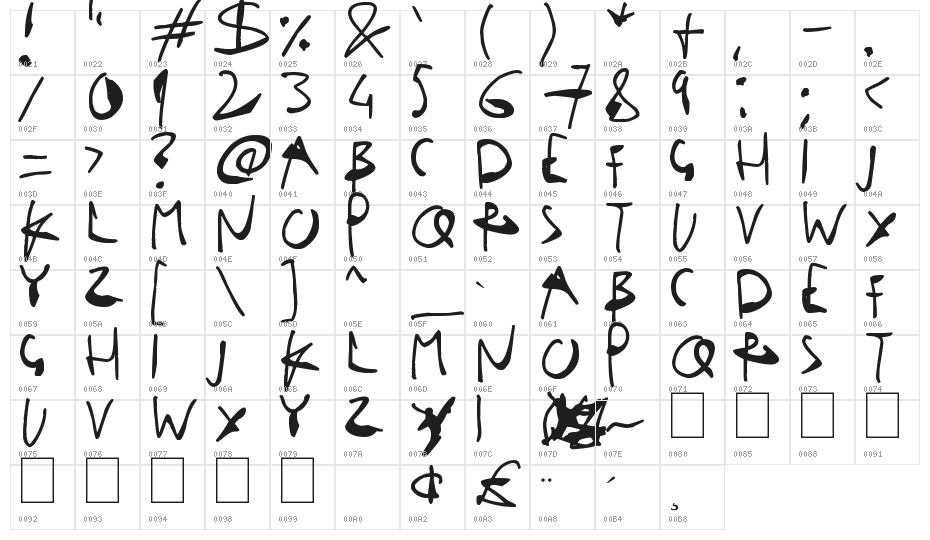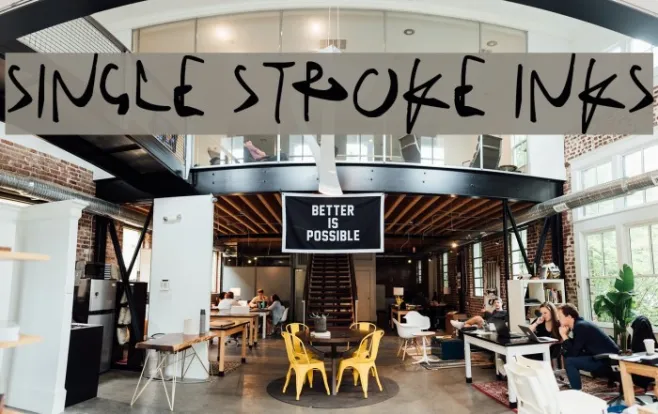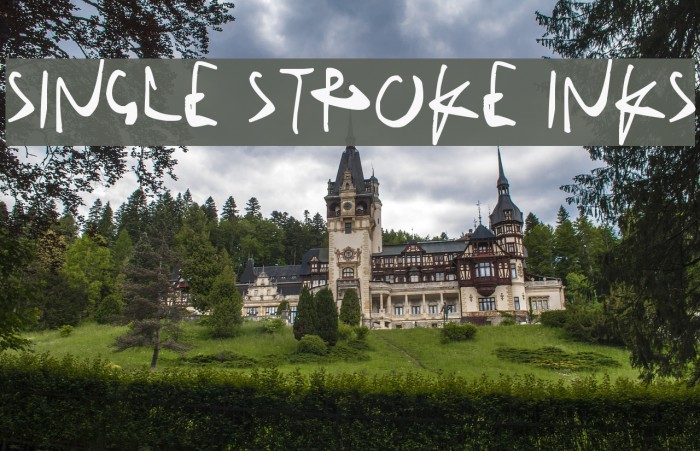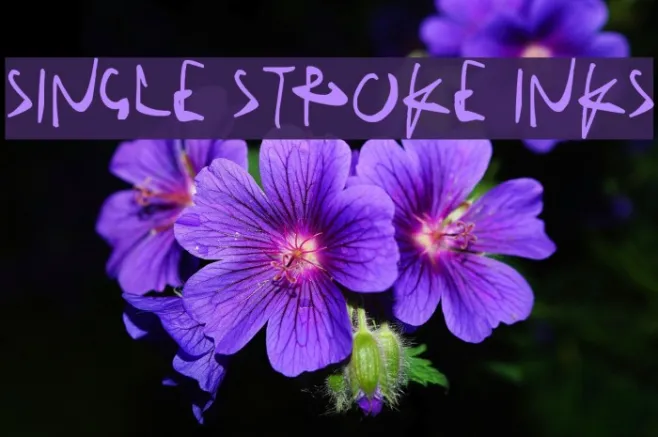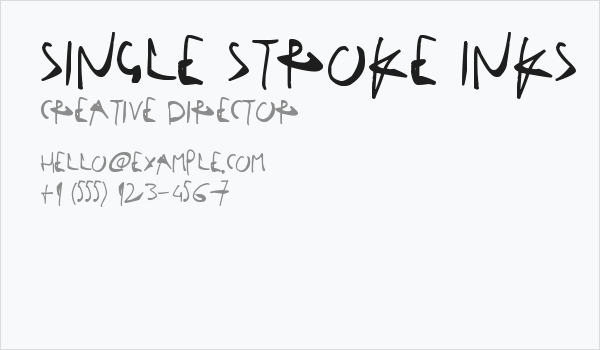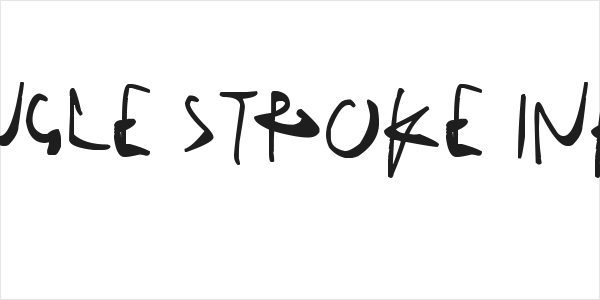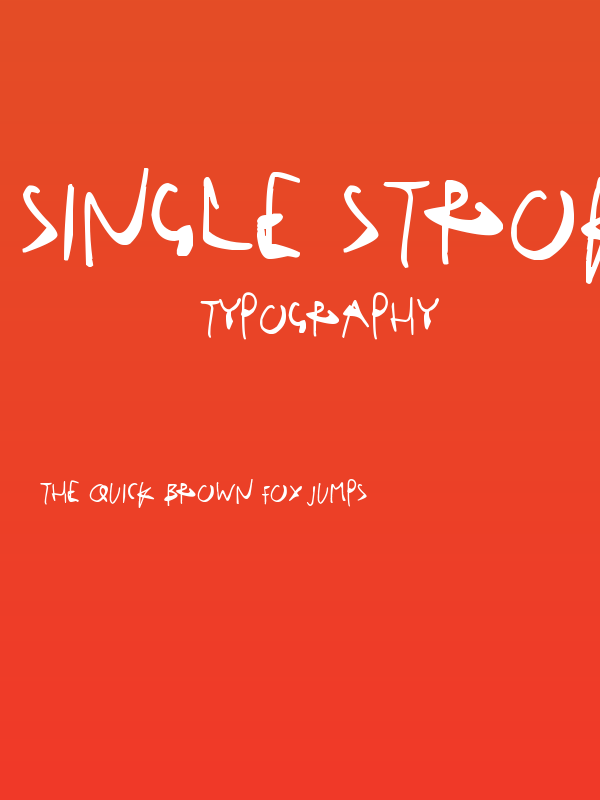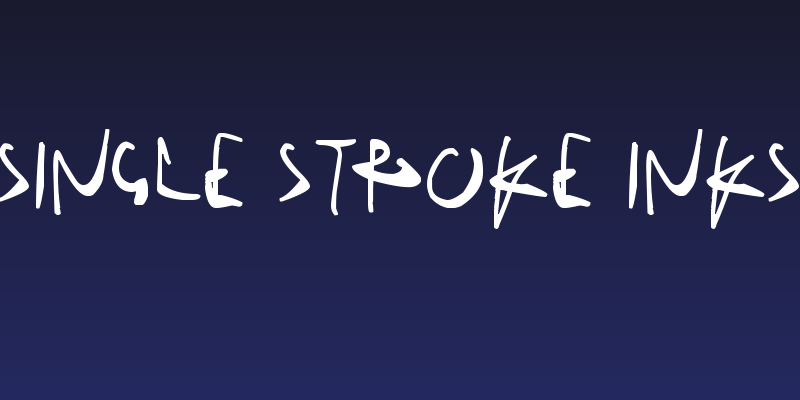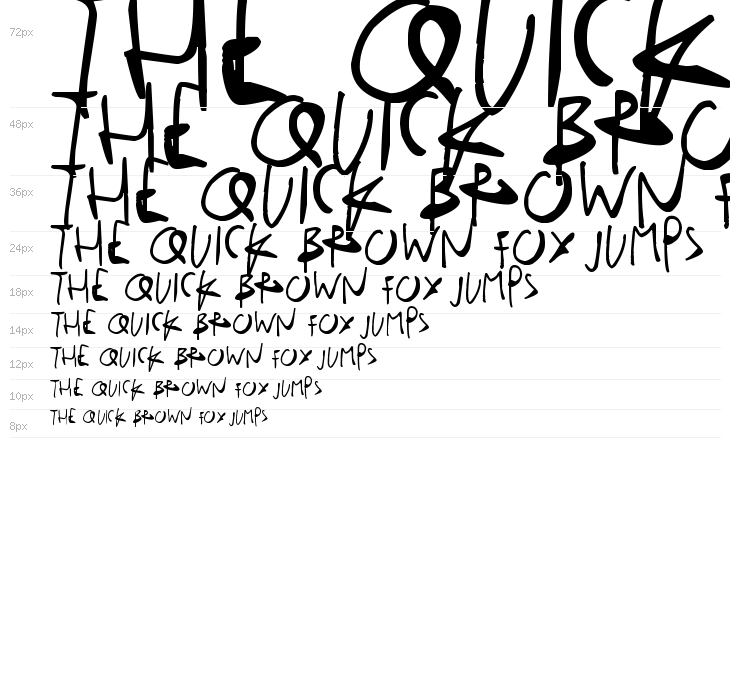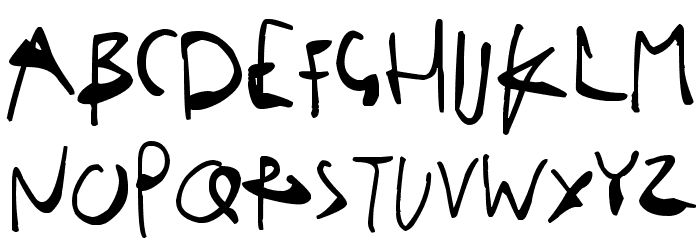
Single Stroke Inks Font
Single Stroke Inks Description
This font features a bold, expressive style with a hand-drawn appearance. Each character is crafted with a single, continuous stroke, giving it a dynamic and fluid look. The letters are slightly irregular, adding to the organic and spontaneous feel. The uppercase and lowercase letters maintain a consistent style, with some letters having unique, artistic flourishes. Numbers and special characters are also included, following the same bold and energetic design. This font is ideal for projects that require a personal, artistic touch, such as posters, invitations, or branding materials.
Proposed ProjectsIdeal for artistic projects, posters, invitations, and branding materials.